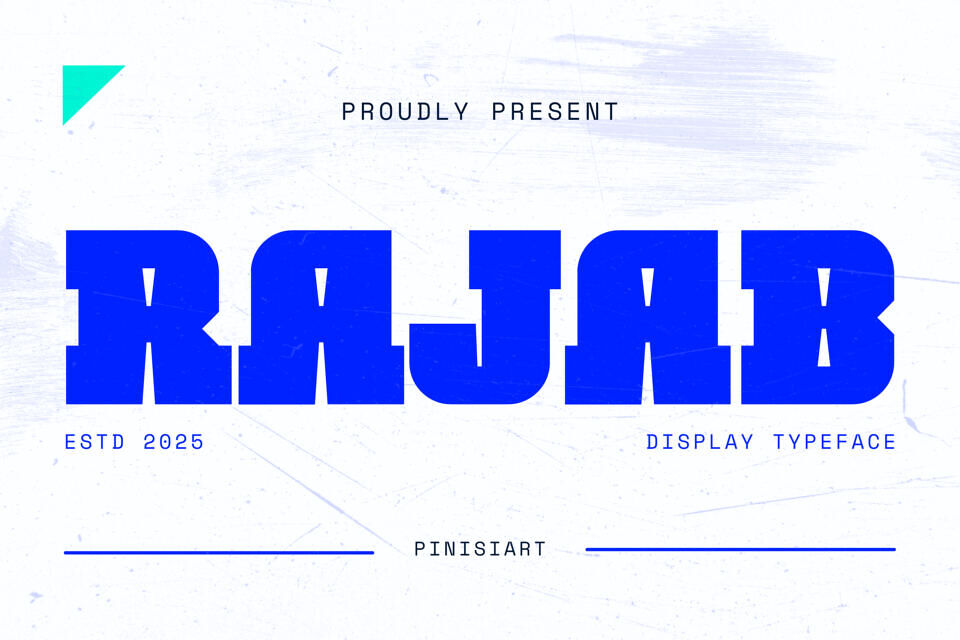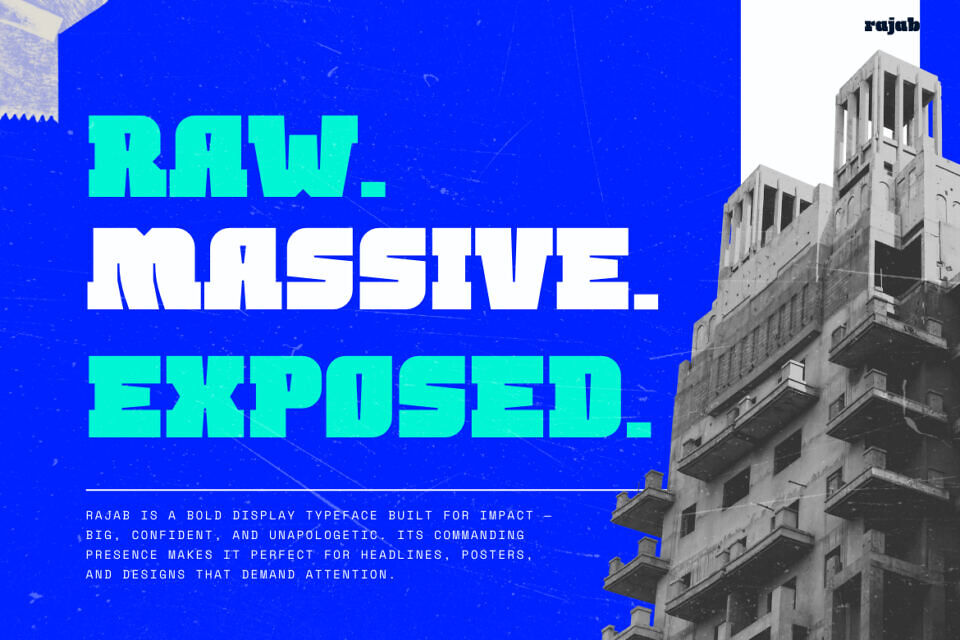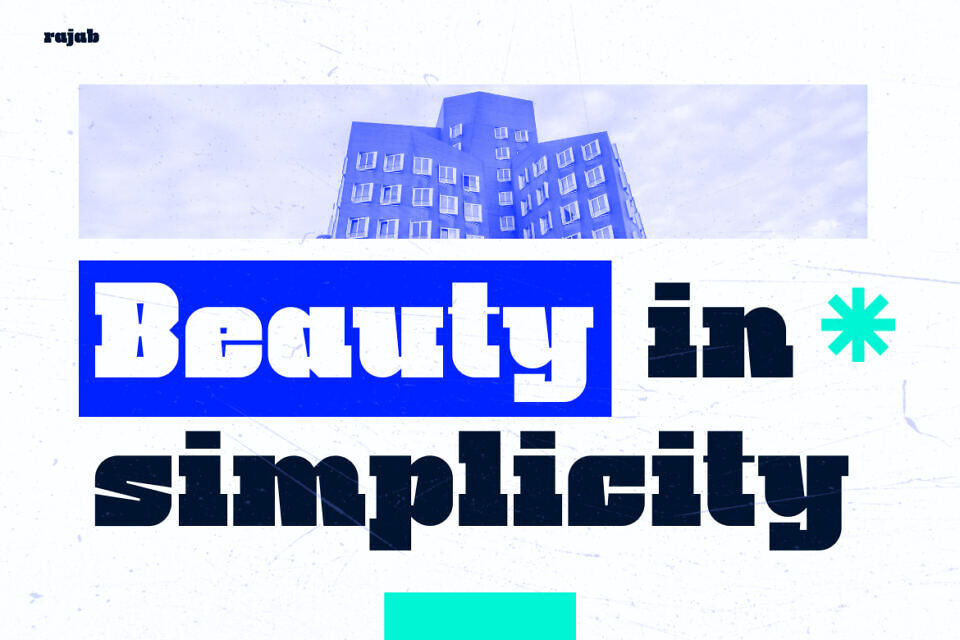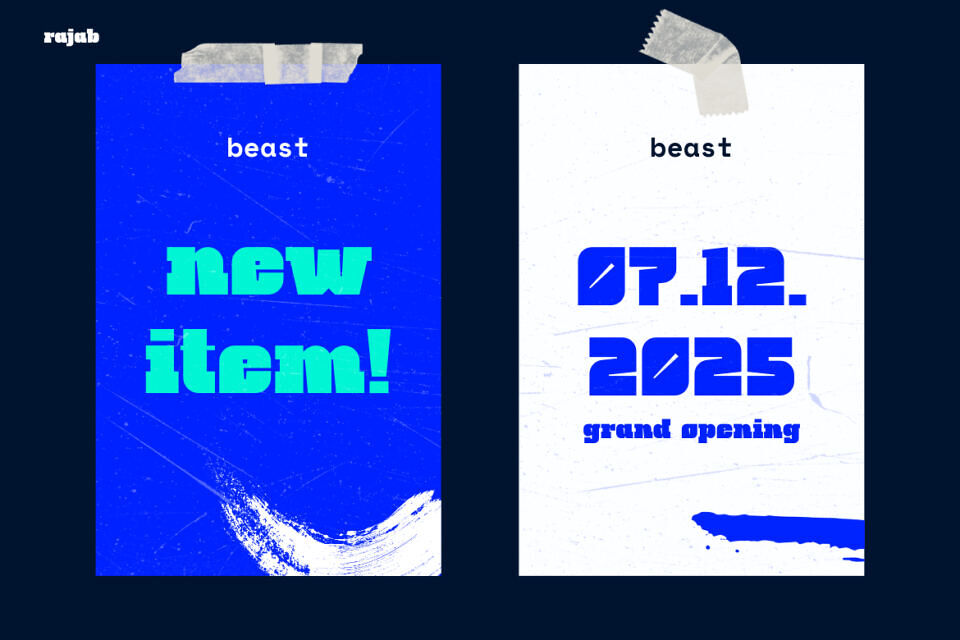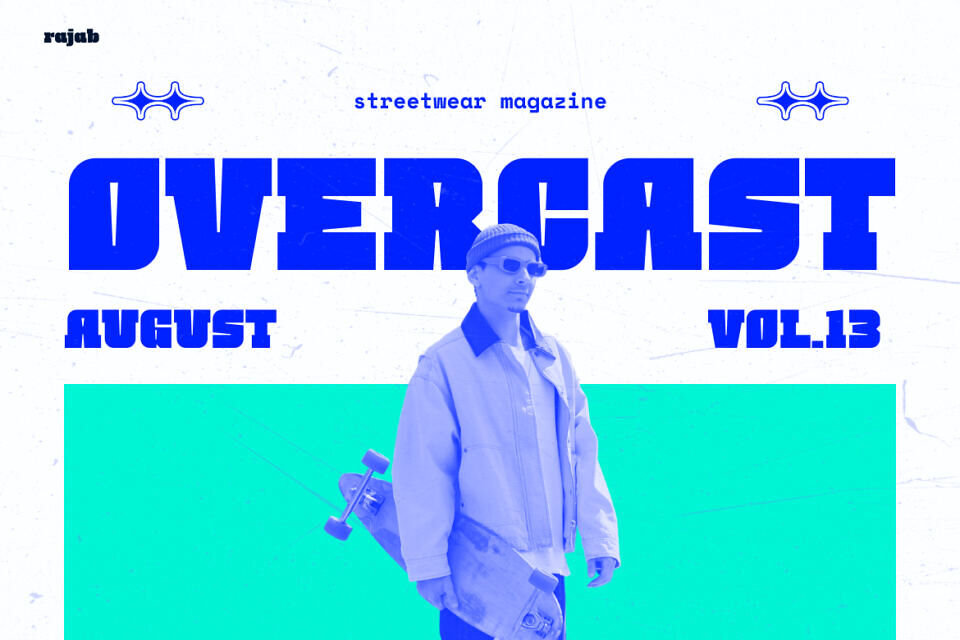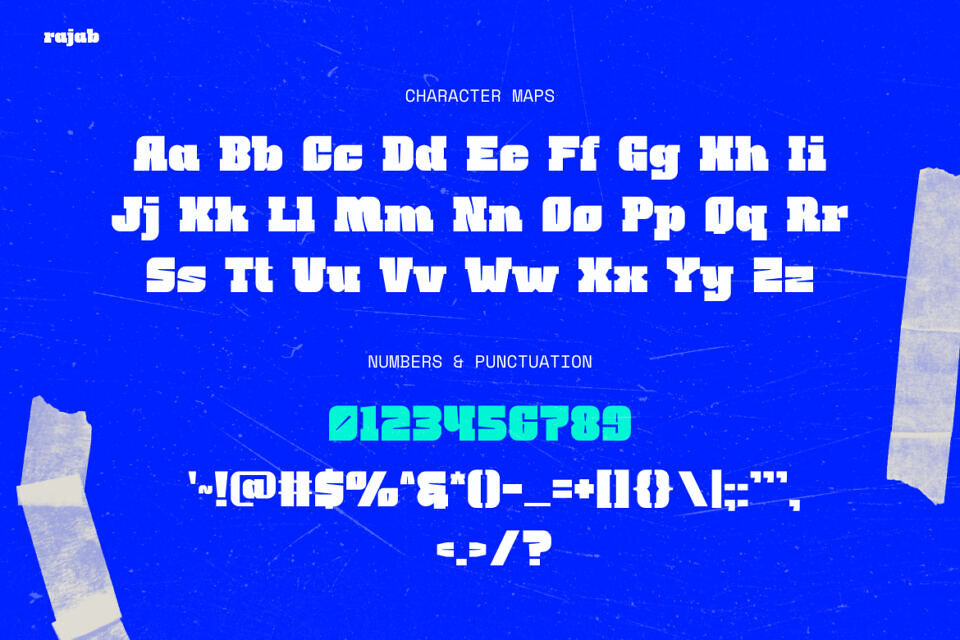
RAJAB is a bold futuristic typeface designed to command attention. Featuring geometric edges, massive proportions, and striking visual impact, it dominates layouts with style and strength. Each character blends sharp display details with smooth readability, creating balance between experimental design and functionality.
Perfect for digital branding, social media graphics, and impactful headlines, RAJAB adapts to both minimal layouts and edgy futuristic themes. This modern display font ensures your message stands out with confidence, versatility, and contemporary appeal.